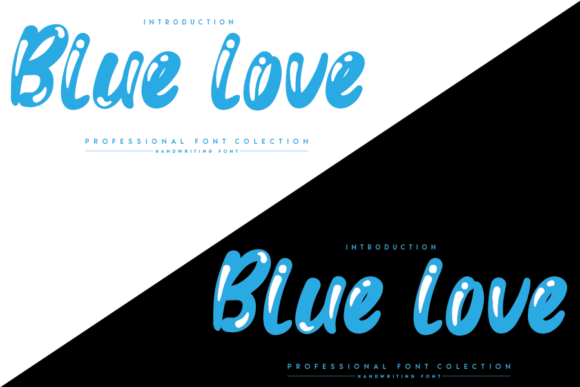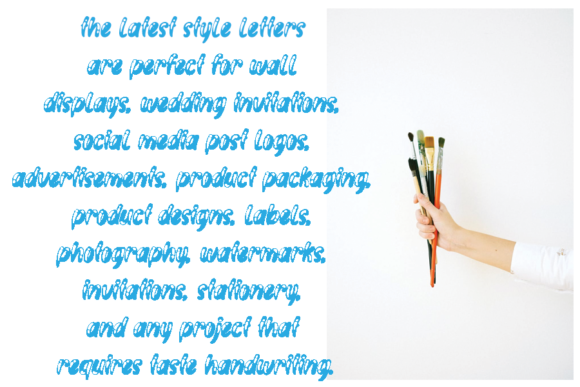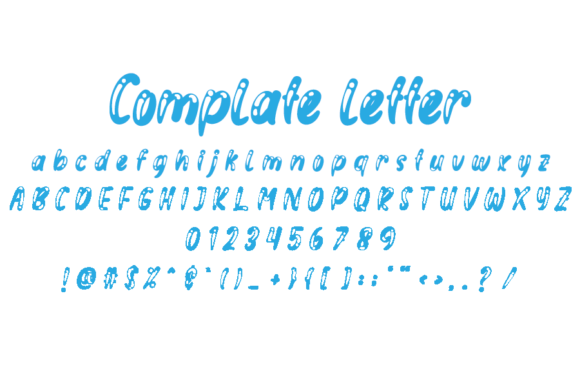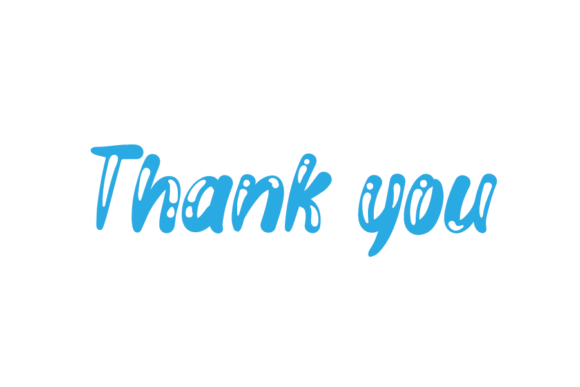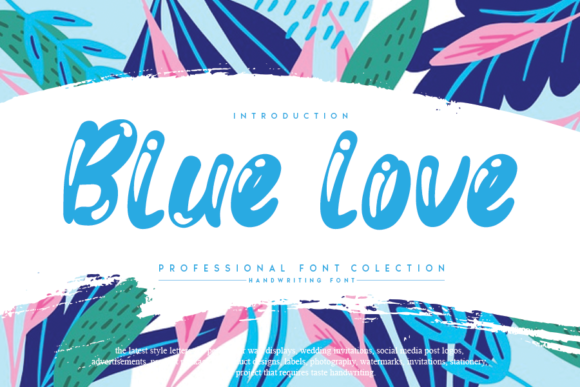
The Power of Blue Love: A Friendly Font for Creative Projects
Have you ever been in the middle of a design project, and suddenly, you’re stuck on finding the perfect font? I certainly have! It was a typical Wednesday afternoon when I was working on a DIY craft project for a client, and I just couldn’t find a font that captured the friendly, casual vibe I was going for. That’s when I stumbled upon Blue Love, a cute and casual handwritten font that instantly became my go-to. In this article, I’ll share my experience with Blue Love, its features, and how to make the most of it in various design platforms.
A Personal Review of Blue Love
Blue Love is a beautiful, handwritten font that exudes warmth and friendliness. Here’s what I love about it:
- ✨ Friendly and approachable feel: Blue Love is perfect for designs that require a personal touch.
- ✅ Highly legible: Even at smaller font sizes, Blue Love remains clear and easy to read.
- 💫 Versatile: From Instagram posts to calligraphy scripts for DIY projects, Blue Love adapts seamlessly.
While Blue Love is an excellent font, it’s not without its quirks:
- 🤔 Limited formal or corporate feel: Blue Love is best suited for casual, creative projects.
- ⚠️ Some letters may appear a bit narrow: This might affect the overall spacing in certain designs.
- Experiment with OpenType features, such as ligatures and stylistic alternates, to add visual interest to your text.
The Story Behind Blue Love
Blue Love was designed with the intention of creating a friendly, approachable font that would bring warmth to various design projects. The designer aimed to craft a font that would feel like a handwritten note from a friend – a font that would make readers feel like they’re receiving a personal message. With its casual, handwritten style, Blue Love achieves just that.
| What type of projects is Blue Love best suited for? | Blue Love is perfect for casual, creative projects such as DIY crafts, social media posts, and invitations. |
| Is Blue Love a difficult font to read? | No, Blue Love is highly legible, even at smaller font sizes. |